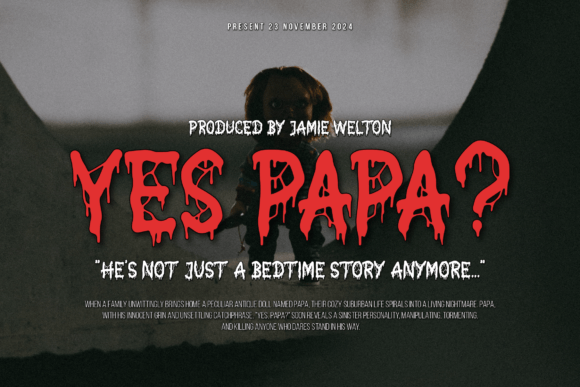
Blood Drainer Font: The Ultimate Horror Display for Spine-Chilling Events
The spooky season is upon us, and what better way to create a chilling atmosphere than with the Blood Drainer Font? This eerie and thrilling horror display is designed to send shivers down the spines of all who dare to experience it. With its creepy sounds, eerie lights, and terrifying scene of a dark creature feeding on blood, Blood Drainer is the perfect addition to any Halloween or haunted house event.
The Inspiration Behind Blood Drainer
The Blood Drainer Font was created with one goal in mind: to evoke a sense of fear and unease in those who experience it. The designers of this horror display drew inspiration from the darkest corners of human imagination, crafting a scene that is both terrifying and mesmerizing. The result is a display that is sure to leave a lasting impression on all who see it.
The Features of Blood Drainer
So, what makes the Blood Drainer Font so special? Here are just a few of the features that set it apart:
- Eerie Lights: The Blood Drainer Font features a range of eerie lights that are designed to create an unsettling atmosphere. From flickering candles to glowing red eyes, every detail has been carefully crafted to create a sense of unease.
- Creepy Sounds: But it’s not just the visuals that make Blood Drainer so effective – the soundscape is equally important. The display features a range of creepy sounds, from howling wind to eerie whispers, that are sure to send shivers down your spine.
- Chilling Scene: At the heart of the Blood Drainer Font is a chilling scene of a dark creature feeding on blood. This terrifying image is sure to be the focal point of any event, and is guaranteed to leave a lasting impression on all who see it.
Using Blood Drainer at Your Event
So, how can you use the Blood Drainer Font to create a spooky and thrilling atmosphere at your event? Here are a few ideas:
- Halloween Parties: Blood Drainer is the perfect addition to any Halloween party. Use it to create a spooky entrance, or as a focal point for your decorations.
- Haunted Houses: If you’re running a haunted house or spooky attraction, Blood Drainer is a must-have. Use it to create a terrifying scene that will leave your visitors screaming.
- Themed Events: Blood Drainer can be used at any themed event, from horror movie premieres to spooky-themed corporate events.
The Benefits of Blood Drainer
So, why choose the Blood Drainer Font for your event? Here are just a few of the benefits:
- Unique Experience: Blood Drainer offers a unique and unforgettable experience that will leave a lasting impression on all who see it.
- Customizable: The Blood Drainer Font can be customized to fit your specific needs. Whether you want to change the colors, sounds, or scene, everything can be tailored to create the perfect atmosphere.
- Easy to Use: Despite its terrifying appearance, Blood Drainer is surprisingly easy to use. Simply set it up, turn it on, and let the scares begin!